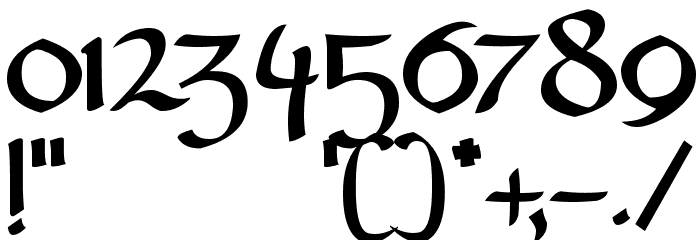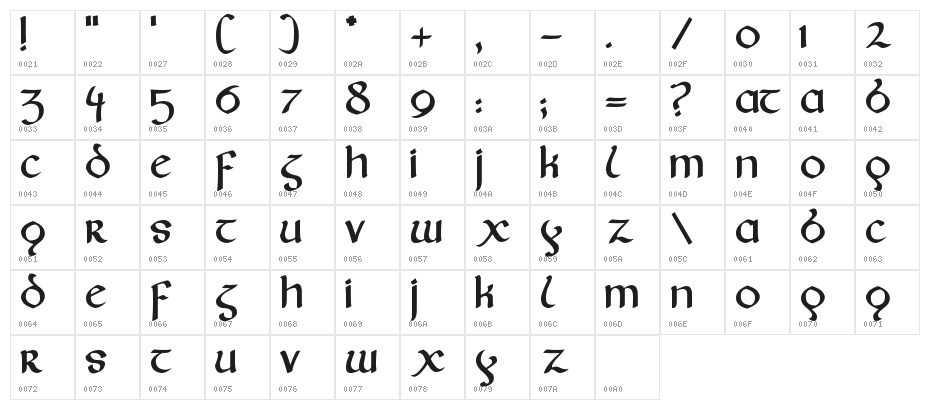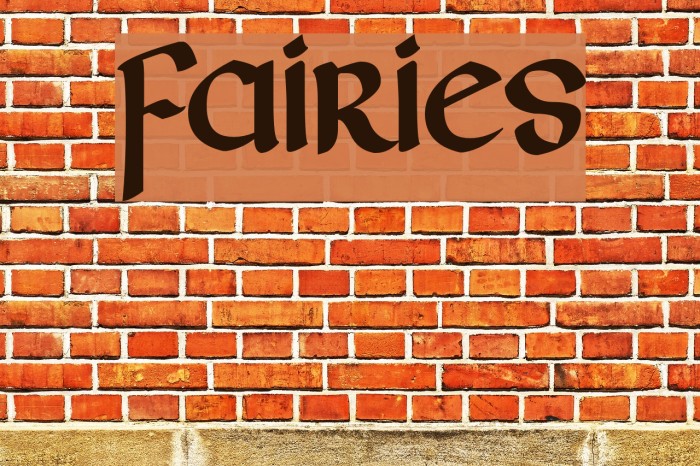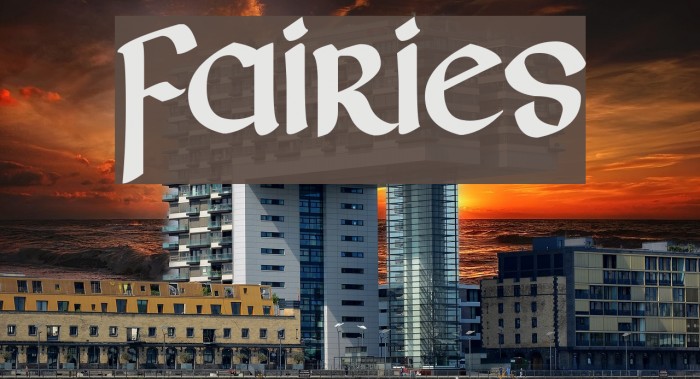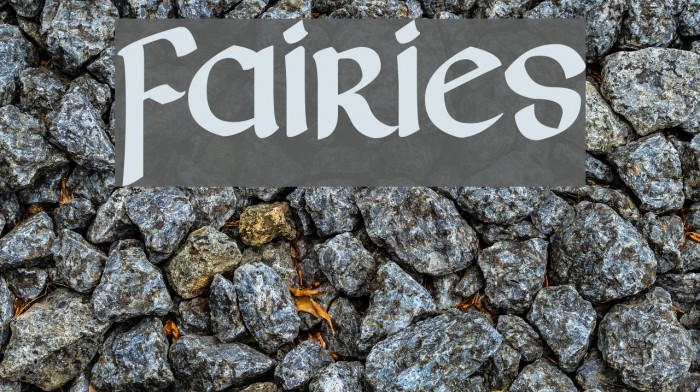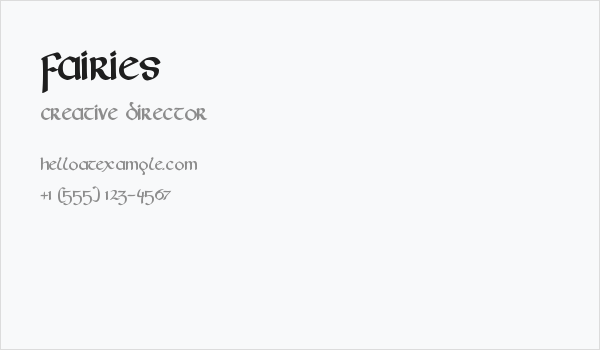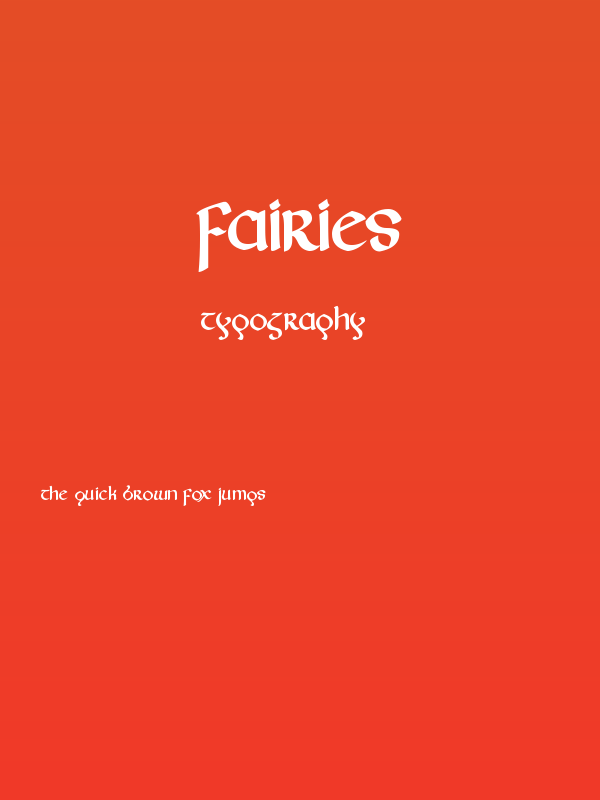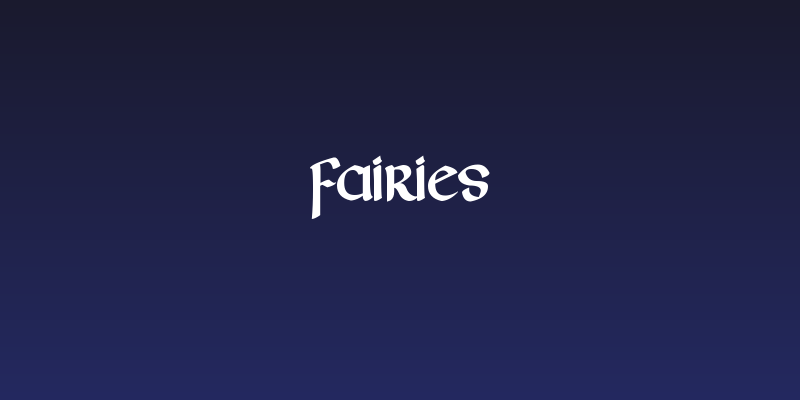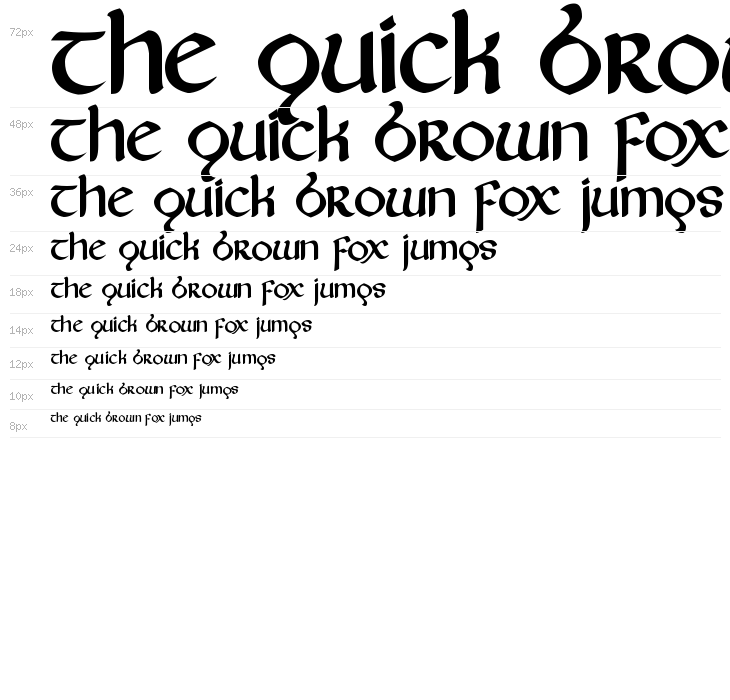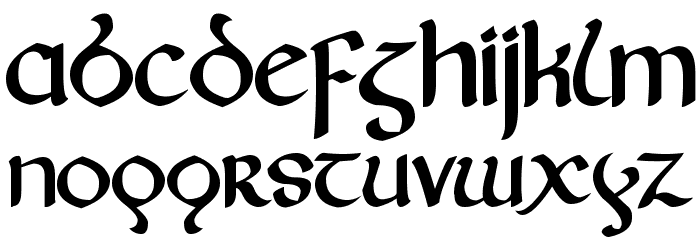
Fairies Font
Fairies Description
This font features a whimsical and decorative style, reminiscent of medieval script with a modern twist. The characters are bold and have a distinct flair, with exaggerated curves and sharp edges that give them a unique, fairy-tale-like appearance. The uppercase and lowercase letters maintain a consistent style, with the lowercase letters exhibiting a slightly more playful and rounded form. The numbers and special characters are designed to match the overall aesthetic, ensuring a cohesive look across all text elements. This font is ideal for projects that require a touch of fantasy and elegance.
| Proposed Projects | Perfect for fantasy-themed books, greeting cards, invitations, and branding that requires a magical touch. |